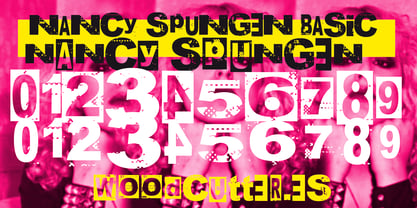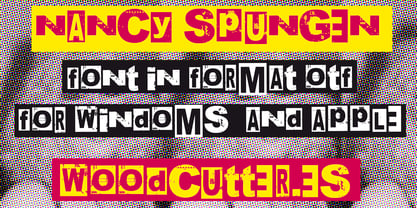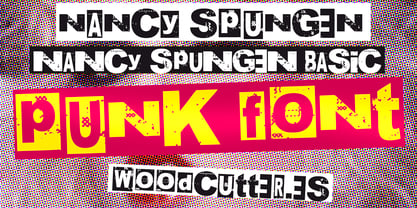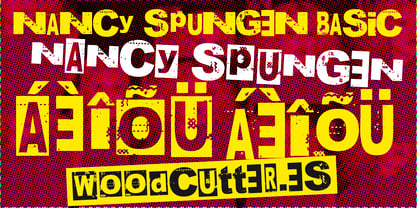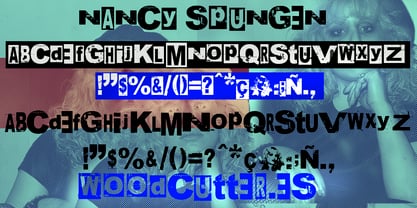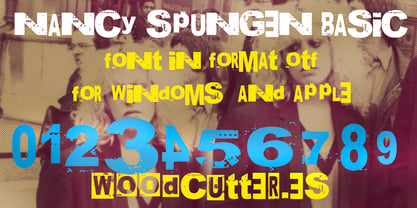
Nancy Spungen
by Woodcutter
The Nancy Spungen Font Family was designed by Jordi Manero and published by Woodcutter. Nancy Spungen contains 2 styles and family package options. More about this family
Nancy Spungen is an all-caps typeface with accents, fully steeped in the rebellious spirit of punk rock. Its distorted and aggressive design recalls hand-made fanzines, underground gig flyers, and the rawest punk album covers. This font isn’t about perfection—it’s about attitude, disorder, and graphic authenticity.
The family consists of two versions, both capturing the visual chaos of punk:
Nancy Spungen, the main version, features distorted letters with a wild mix—some characters are boxed, while others are completely free. This clash between containment and disorder reinforces the disruptive nature of the typeface, making it perfect for provocative and rebellious designs.
Nancy Spungen Basic, on the other hand, keeps the distortion and irregularity but removes the boxes. It’s a slightly cleaner option visually, though equally powerful in its punk energy.
Both variants share a raw, irreverent, and completely DIY (do-it-yourself) aesthetic, as if each letter were manually cut, warped, and reassembled. Nancy Spungen is a typeface made to shout, not whisper—ideal for editorial projects, posters, covers, or any design that aims to defy conventions.